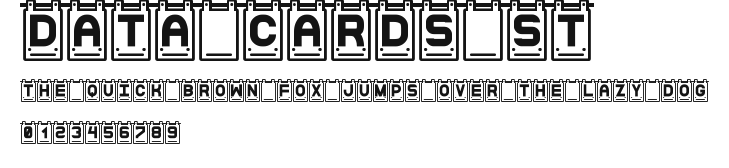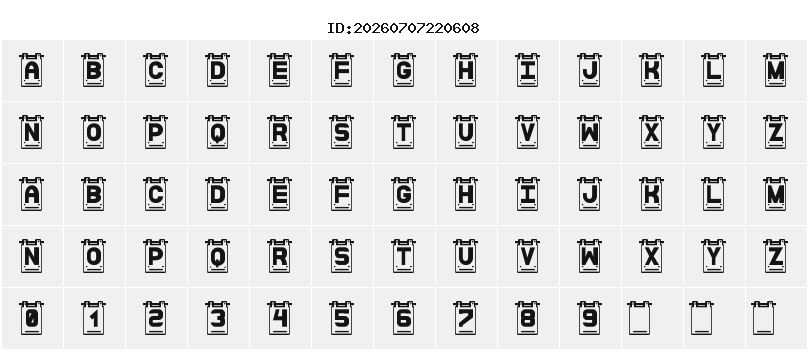
• Font Name: Data Cards St
• Full Font Name: Data Cards St
• Designer: This font is an original work of southype dot com
About Data Cards St.ttf
Data Cards St.ttf is a modern, elegant sans-serif font designed for ultimate readability and visual harmony. Perfect for branding, headlines, web design, and print materials.